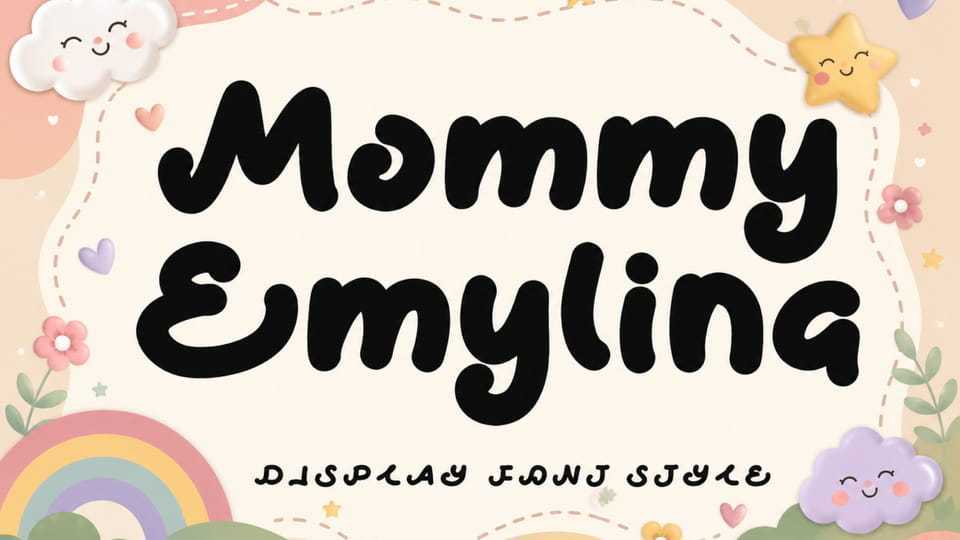
Download Mommy Emylina font, a charming display typeface that captures the spirit of sweet and playful. This font features bold, deeply rounded letterforms characterized by rhythmic, hand-drawn curves